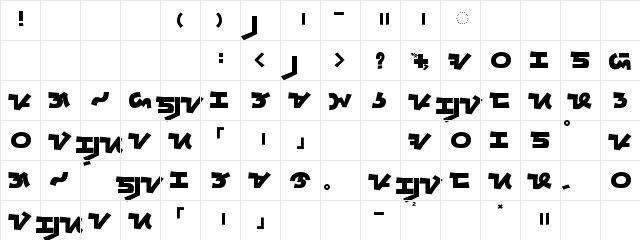
BisayaMFAku Black Black Font Preview
BisayaMFAku Black Black
Design Context for BisayaMFAku Black Typeface
BisayaMFAku Black is a composed and adaptable typeface that performs quietly and consistently across a wide range of design contexts.
Pro Tip: Use BisayaMFAku Black in both headline and body roles to test its range before committing to a single application.